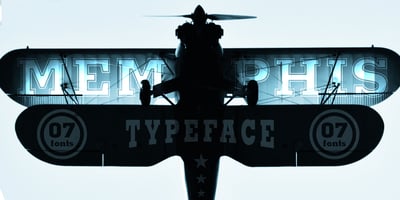
Memphis Font Family was designed by Rudolf Wolf and published by Linotype. Memphis contains 7 styles and family package options. Because of the geometric basis of its forms, Memphis is often thought of as a font for technical fields, making a rational, purposeful impression. This emphasis on objectivity is well-suited to technical texts, but Memphis is appropriate for any text which should exhibit a clear, neutral character.